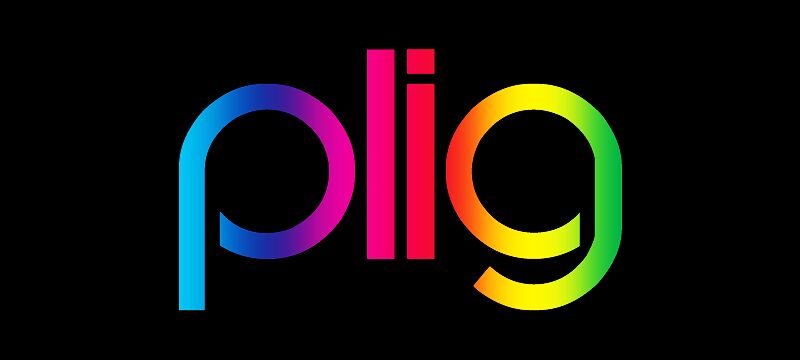
Plig Nova, by Carlos Matteoli, is a free retro display font with the clean geometry of machine-age lettering. Its broad circular forms, tall straight strokes, and rounded joins create a sleek, tightly fitted silhouette.
It can turn a wordmark into a period emblem for fashion labels or cocktail bars. The streamlined construction also suits music posters, magazine covers, and title cards with an Art Deco direction. Repeated arches and near-perfect circles connect particularly well with architectural or city imagery.